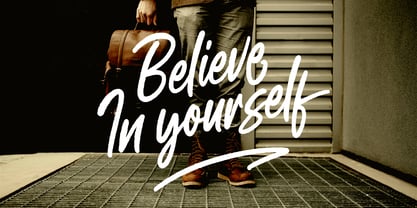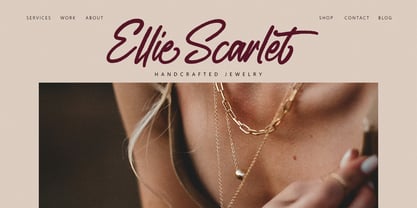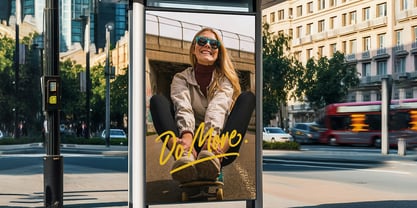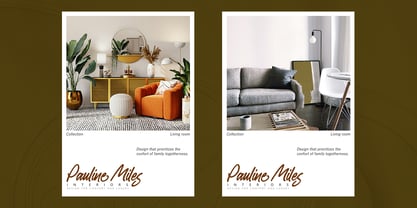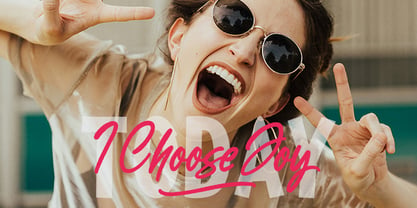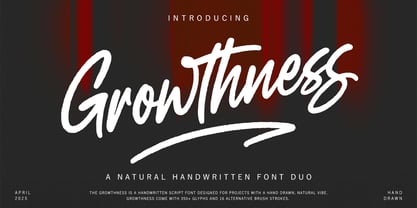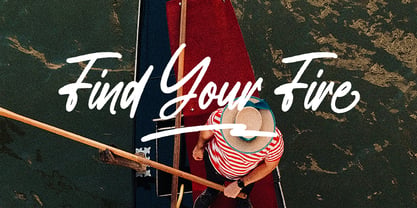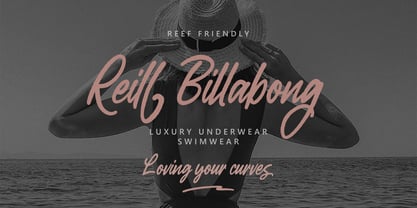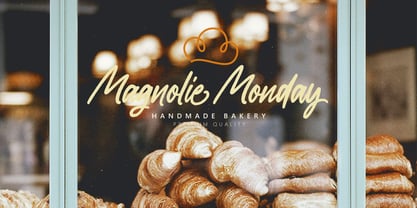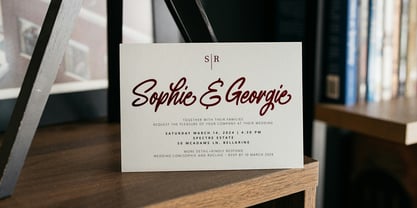
Growthness
La famille de polices Growthness a été conçue par Jamaluddin et publiée par Jamalodin. Growthness contient 1 styles. En savoir plus sur cette famille
Growthness is a handwritten script font designed for projects with a hand drawn, natural vibe. Suitable for branding, product packaging, movie posters, art posters, quotes, logo design, name card, blog header, logo, fashion, apparel and other projects.
Come with 350+ glyphs and 16 alternative brush strokes. Uppercase & Lowercase, International Language, Symbols Support Punctuation & Numeral, Alternates Stylistic Set 1-6 Character Variant Contextual. And this Font has given PUA Unicode. so that all the alternate characters can easily be accessed in full by a craftsman or designer.